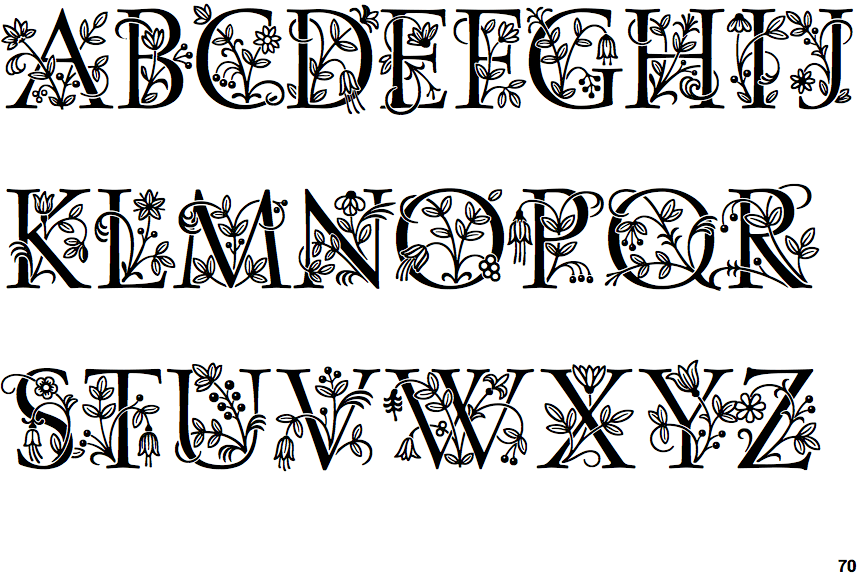
P22 Posies Initial
Based on "Secretary Hand" from the time of the English Civil War, circa 1632.
Designer: Robby Woodard Year: 2020 Publishers: International House of Fonts and P22 No lower-case or accented characters or digits. |